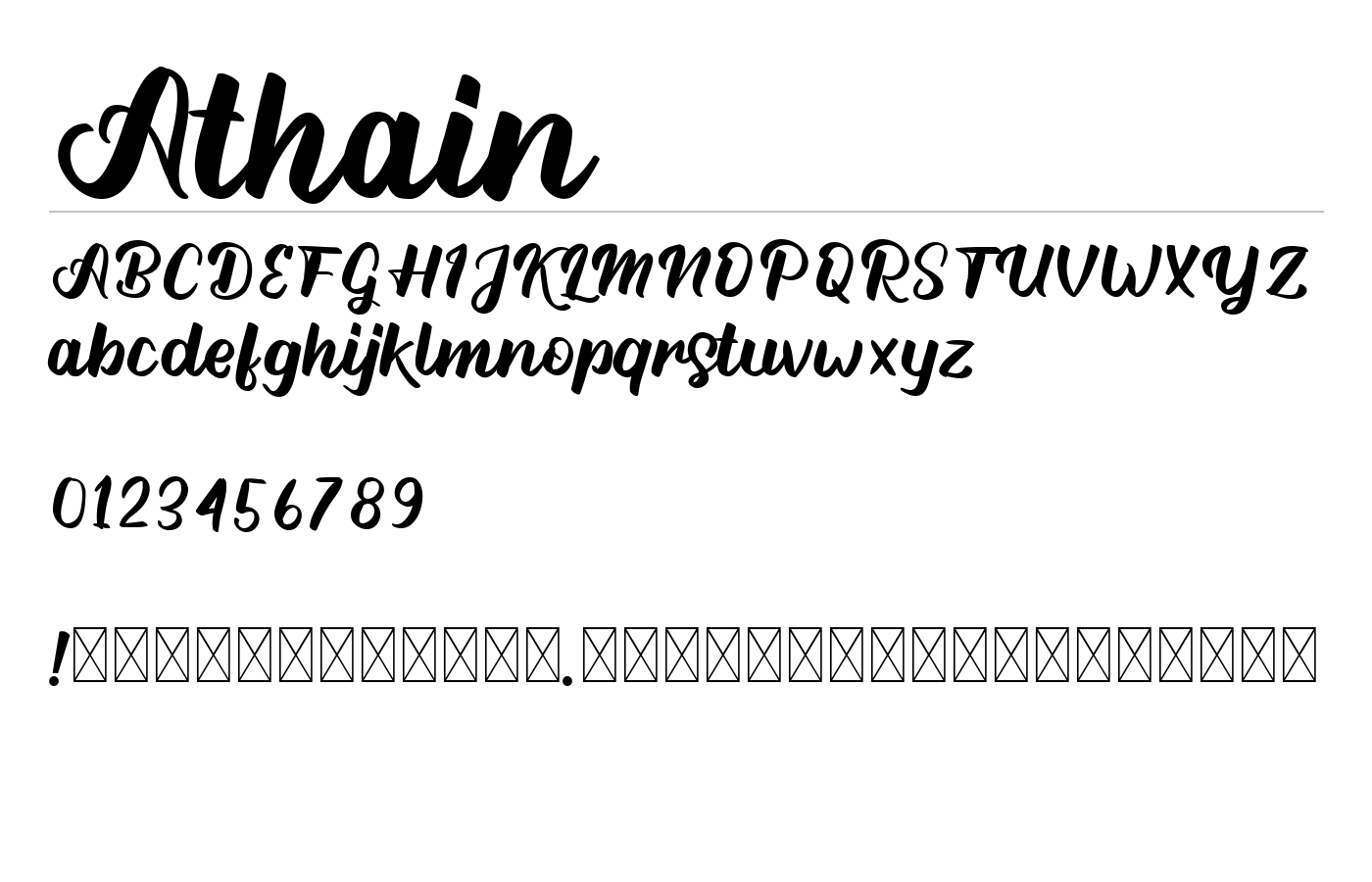
Athain is a bold, brush script font with a lively, casual feel, featuring smooth, flowing strokes and a slightly condensed width that gives it energy and charm. Its rounded, connected letterforms with moderate contrast and single-story characters make it perfect for creating friendly, approachable designs, ideal for branding, invitations, and headlines where a personal, handcrafted touch is desired. This font works well in projects that want to convey warmth and creativity while maintaining clear readability and style.
Athain Font
About Athain Font
| Font family | Athain Font |
| Designer | Jos Gandos |